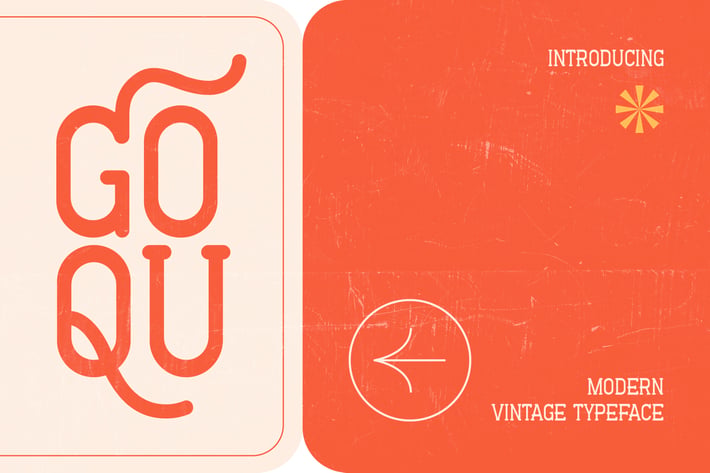
Goqu Modern Vintage Font - ZD
Goqu is a unique modern vintage typeface with a stylish retro touch. Featuring sleek letterforms with subtle curves, Goqu offers an elegant yet playful look. With alternate characters included, this font provides great flexibility for various design needs, such as branding, editorials, posters, and packaging.
- All Caps Letters
- Perfect for Branding, Posters, Editorials, and Packaging